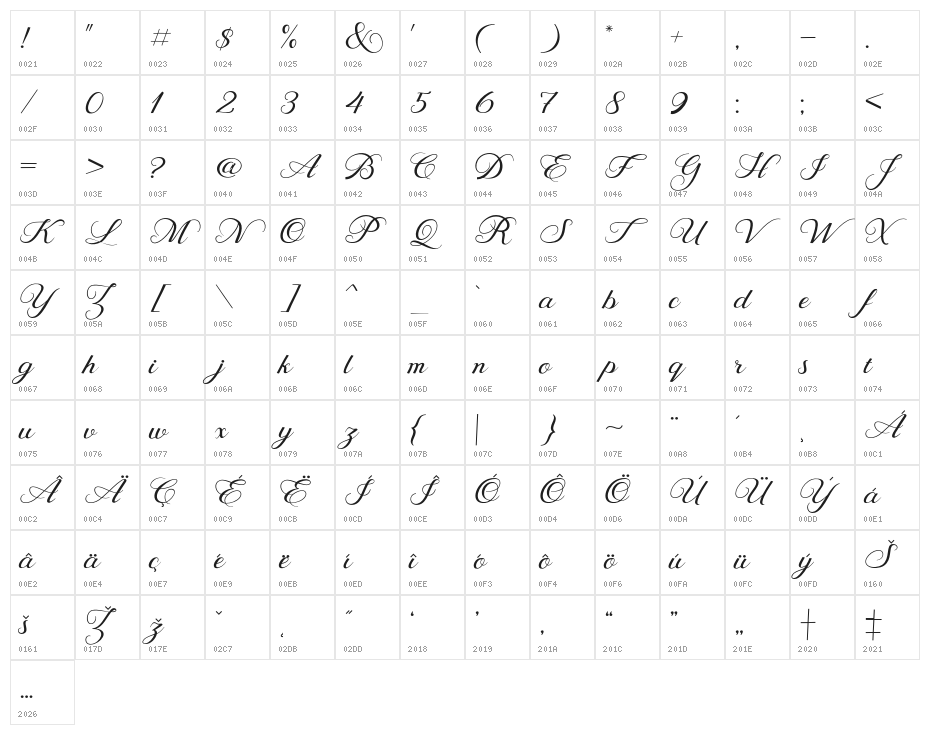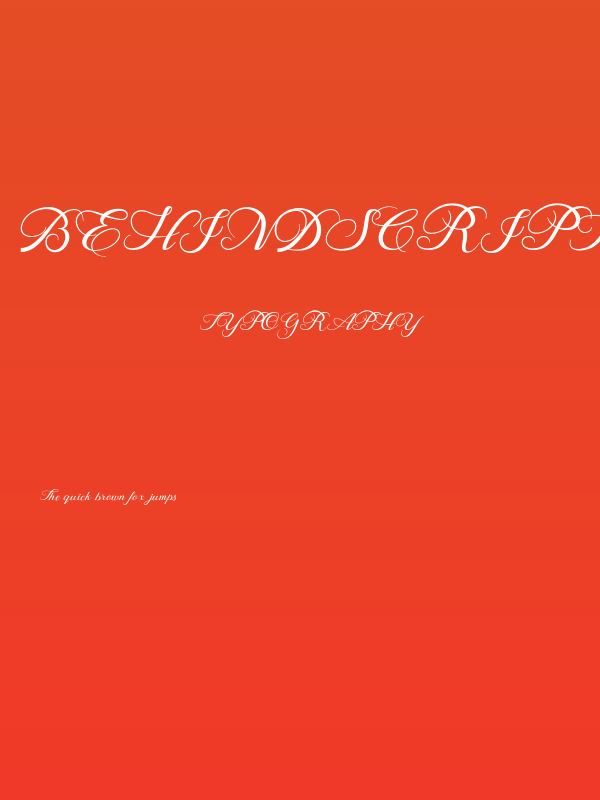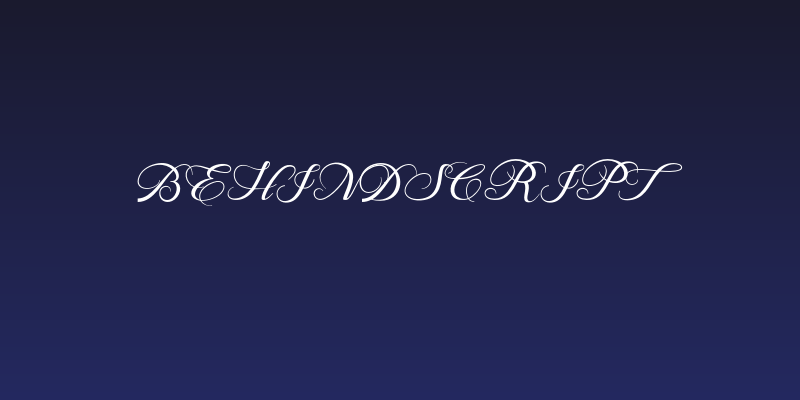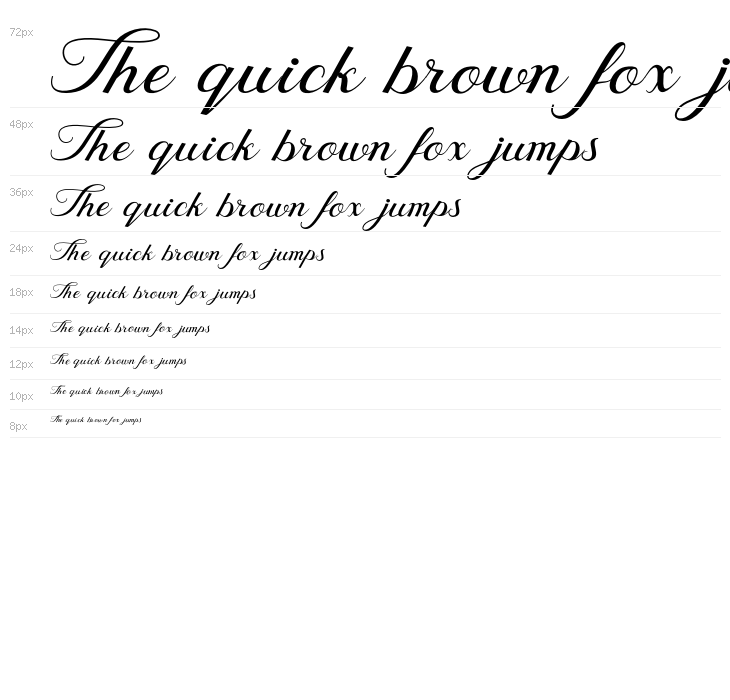
BehindScript Font
BehindScript Description
This elegant script font features a flowing, cursive style with intricate loops and flourishes. The uppercase letters are particularly ornate, with sweeping ascenders and descenders that add a touch of sophistication. The lowercase letters maintain a consistent slant, creating a harmonious and fluid appearance. Numbers and special characters are designed with the same attention to detail, ensuring a cohesive look across all text. The font's delicate strokes and high contrast between thick and thin lines make it ideal for formal invitations, branding, and decorative purposes.
| Overall Style | Elegant, Decorative |
| Use Case | Headlines, Invitations, Branding |
| Proposed Projects | Ideal for wedding invitations, luxury branding, greeting cards, and decorative headlines. |